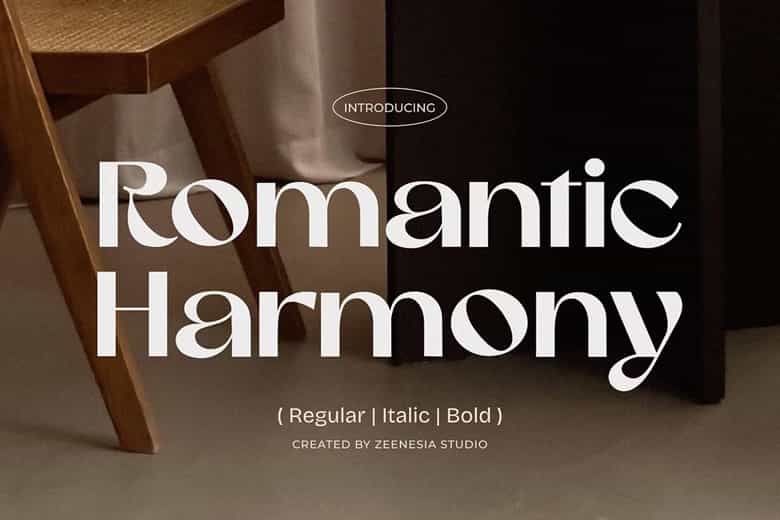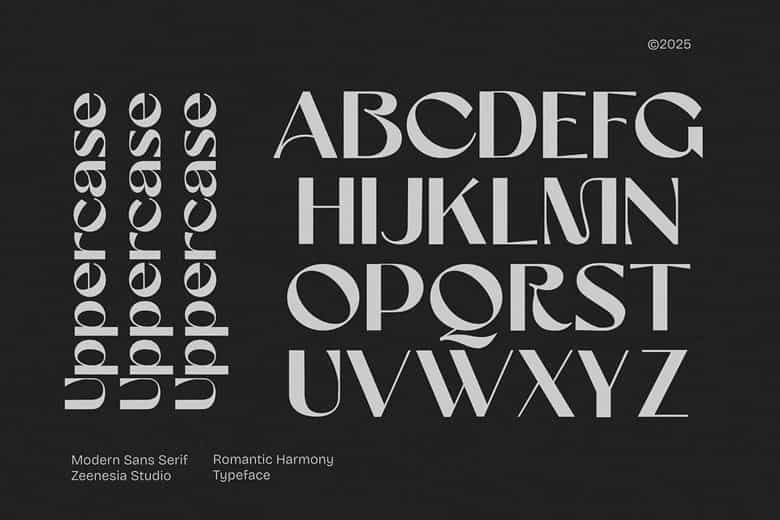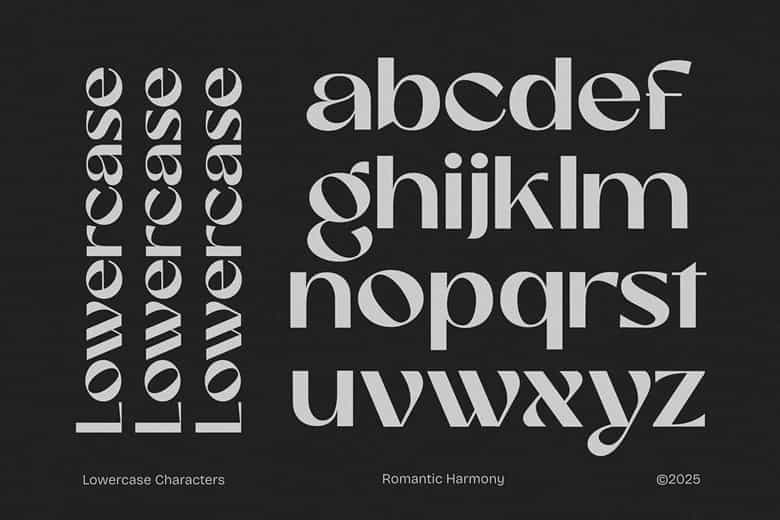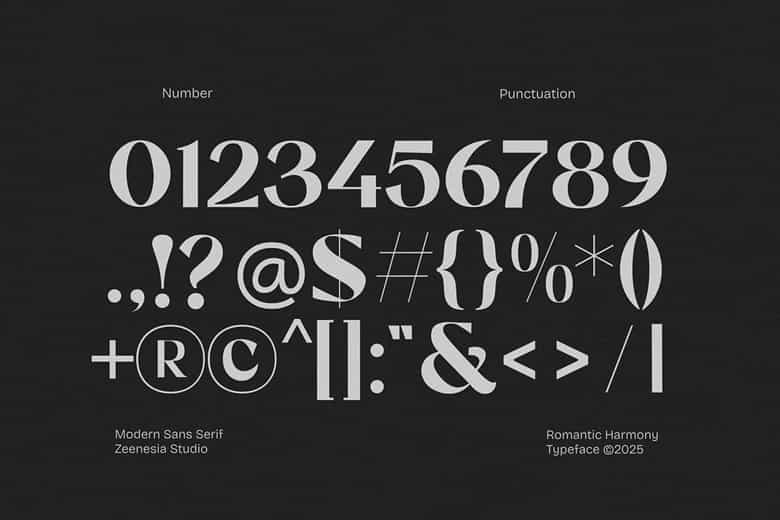
Romantic Harmony is an exceptional font in the sans serif category with a powerful impact. This font is definitely unique in character and with its personality that is appealing at the same time both classic and contemporary. Romantic Harmony humanist font has three variants: Regular, Italic, and Bold types that can fit different design tasks, including branding, editorial design, packaging, multimedia, and interfaces.